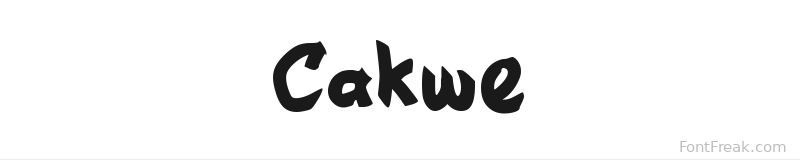
Cakwe
About Cakwe
Cakwe by Wahyu Eka Prasetya is a striking display font that captivates with its unique visual appeal. This font falls into the category of decorative typefaces, characterized by its playful and bold design. The strokes are thick with a consistent weight, creating a strong presence that demands attention. The letters exhibit a slightly rounded form, adding a friendly and approachable feel, while the spacing between characters ensures clarity and legibility, making it suitable for various applications.
The Cakwe font excels in a variety of use cases. It is an excellent choice for restaurant menus, where its inviting style can enhance the dining experience. Additionally, it works wonderfully for wedding invitations, offering a modern yet elegant touch that can set the tone for the event. Movie posters can also benefit from the Cakwe font, as its boldness can convey the drama and excitement of the film. Small business owners looking to create standout branding will find this font particularly useful for logos and promotional materials, while content creators can leverage it to add flair to social media graphics.
What truly sets Cakwe apart is its ability to blend fun with functionality. Its distinctive style not only captures the eye but also maintains readability, ensuring that messages are communicated effectively. Whether used in print or digital formats, this font stands as a memorable choice for those aiming to leave a lasting impression. Don’t miss out on the chance to enhance your designs with the Cakwe font free download.